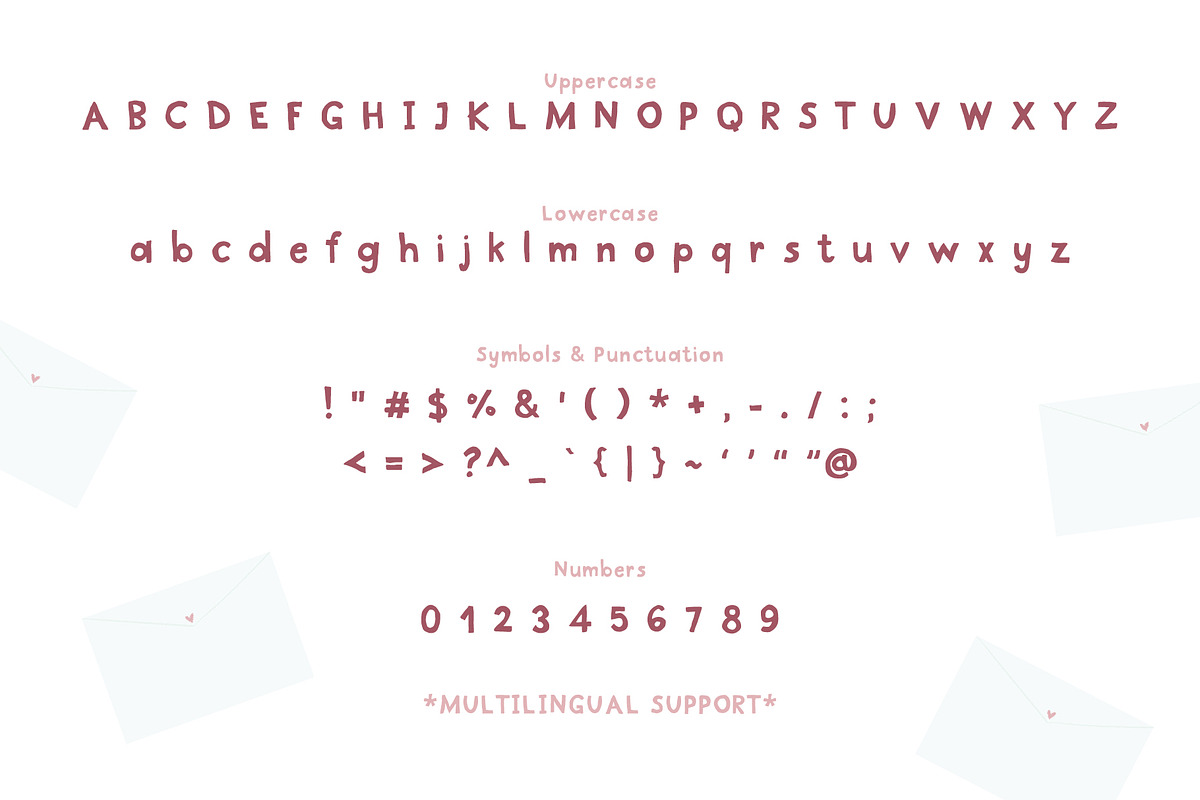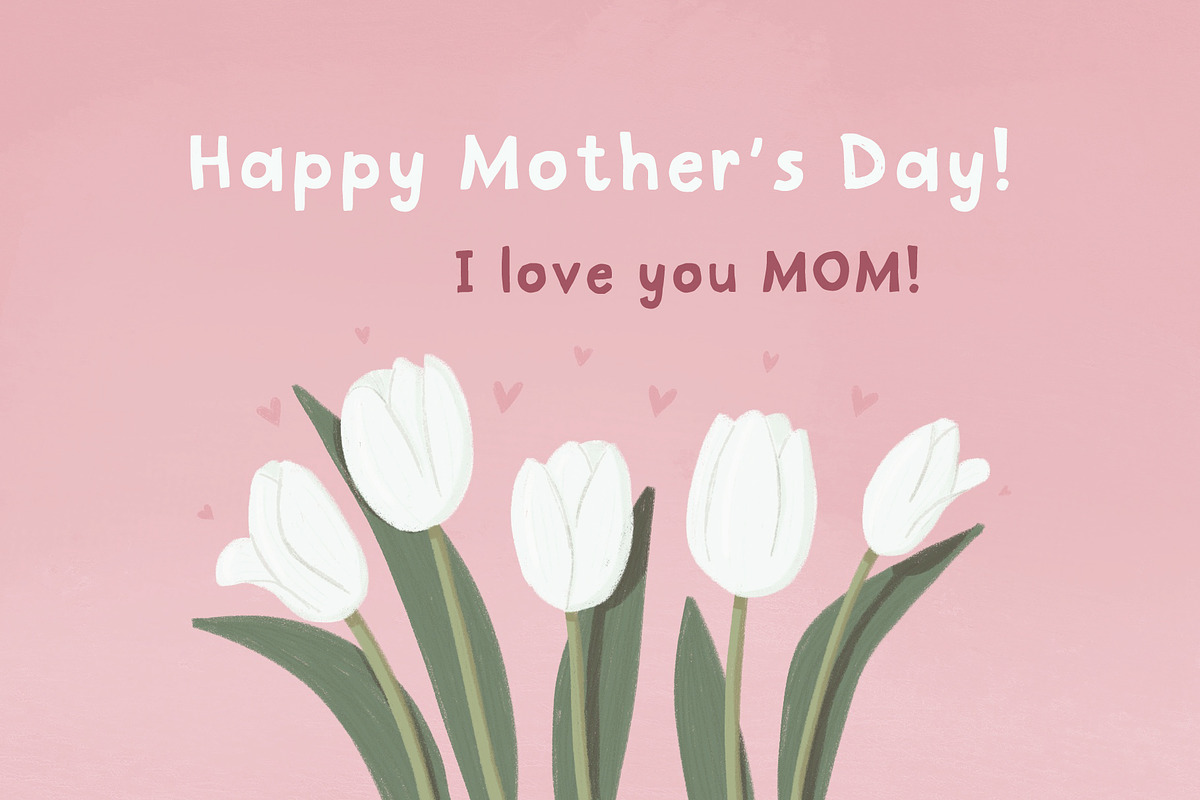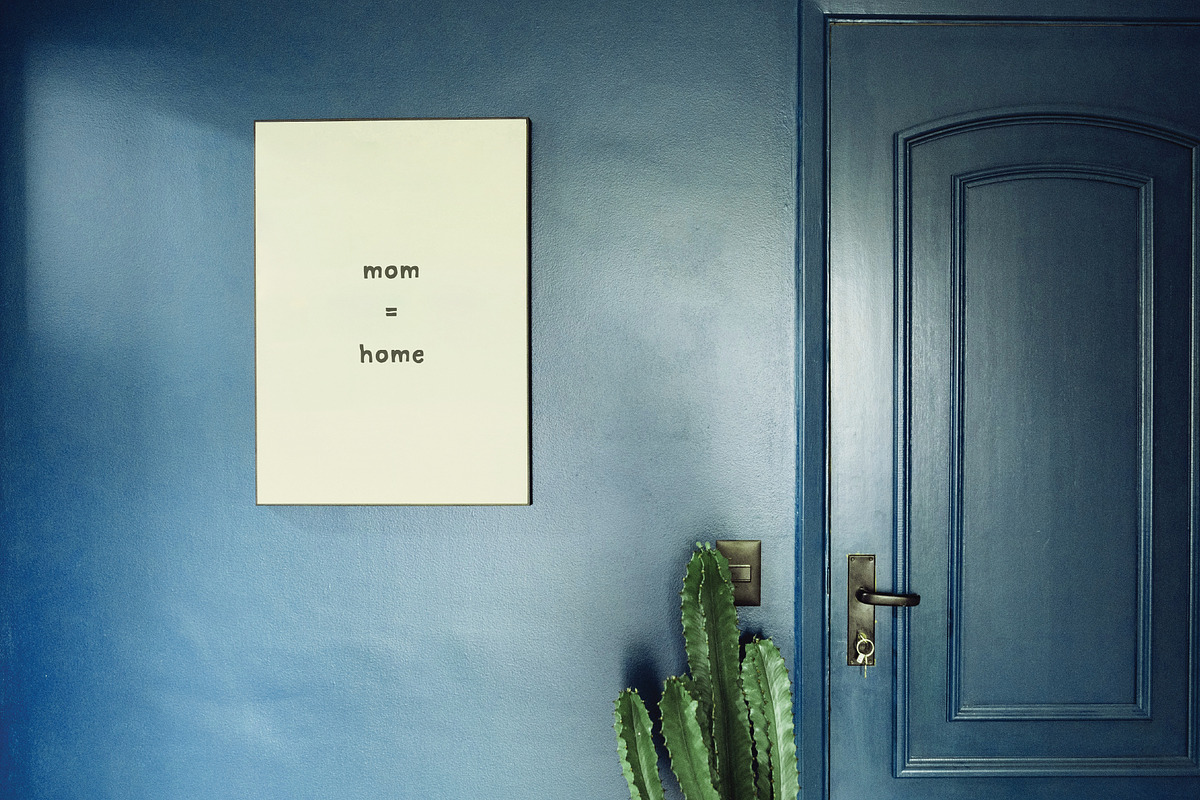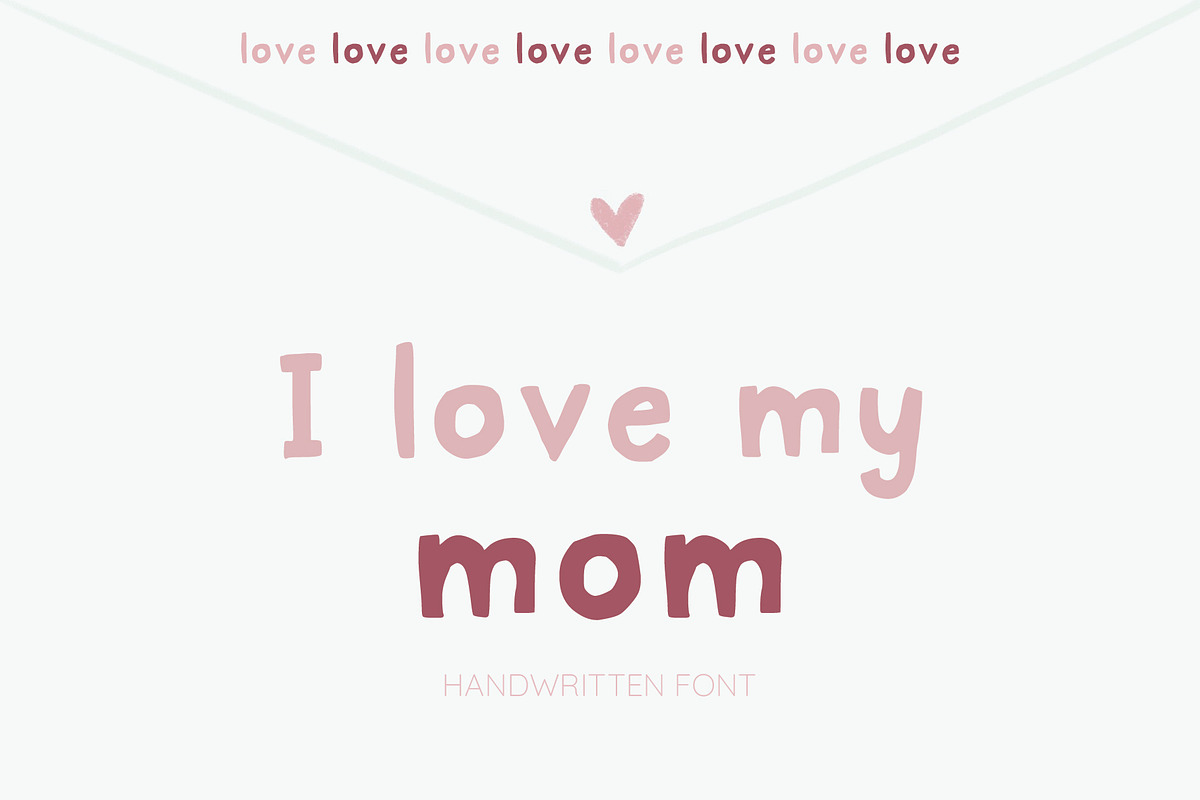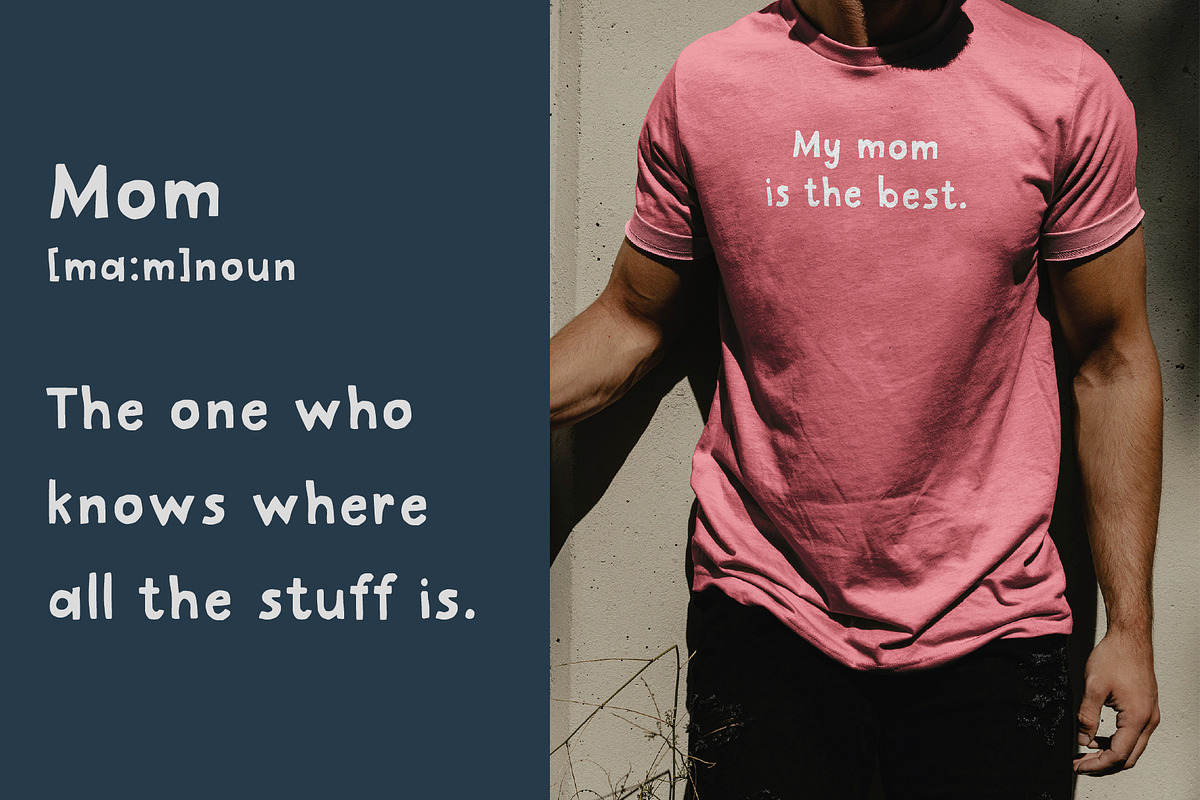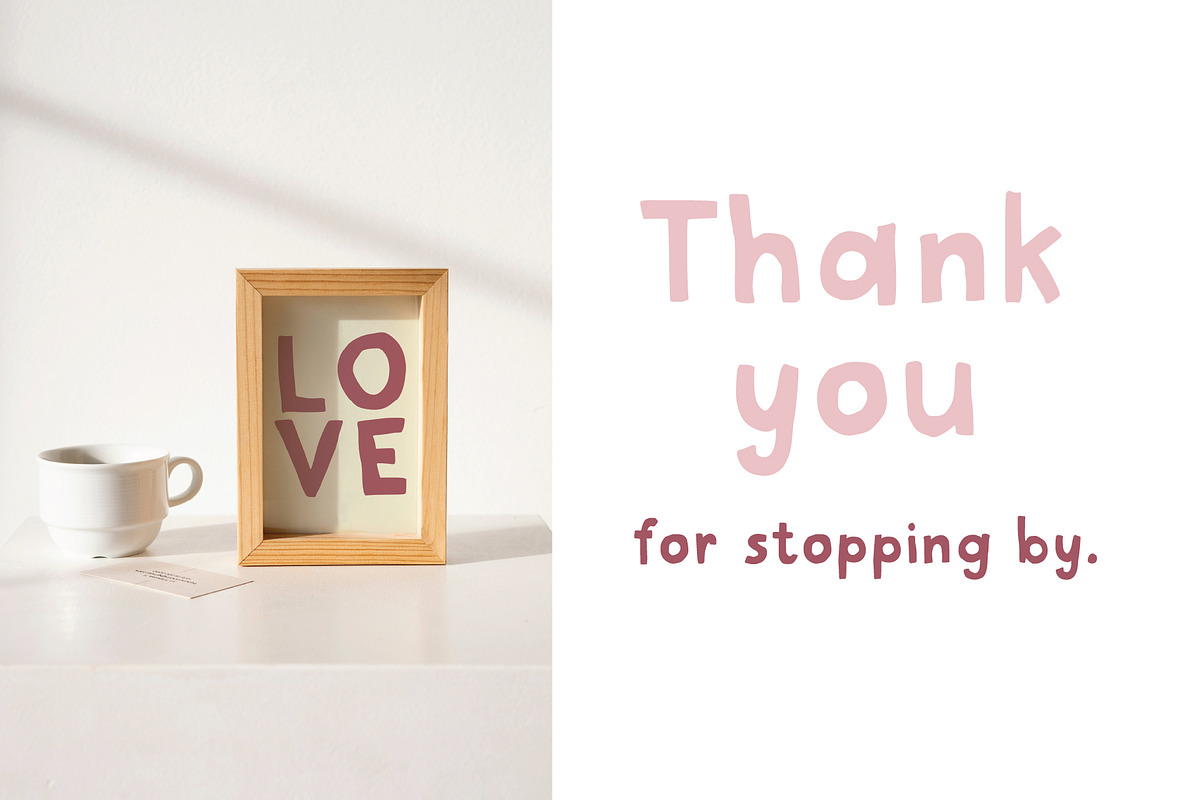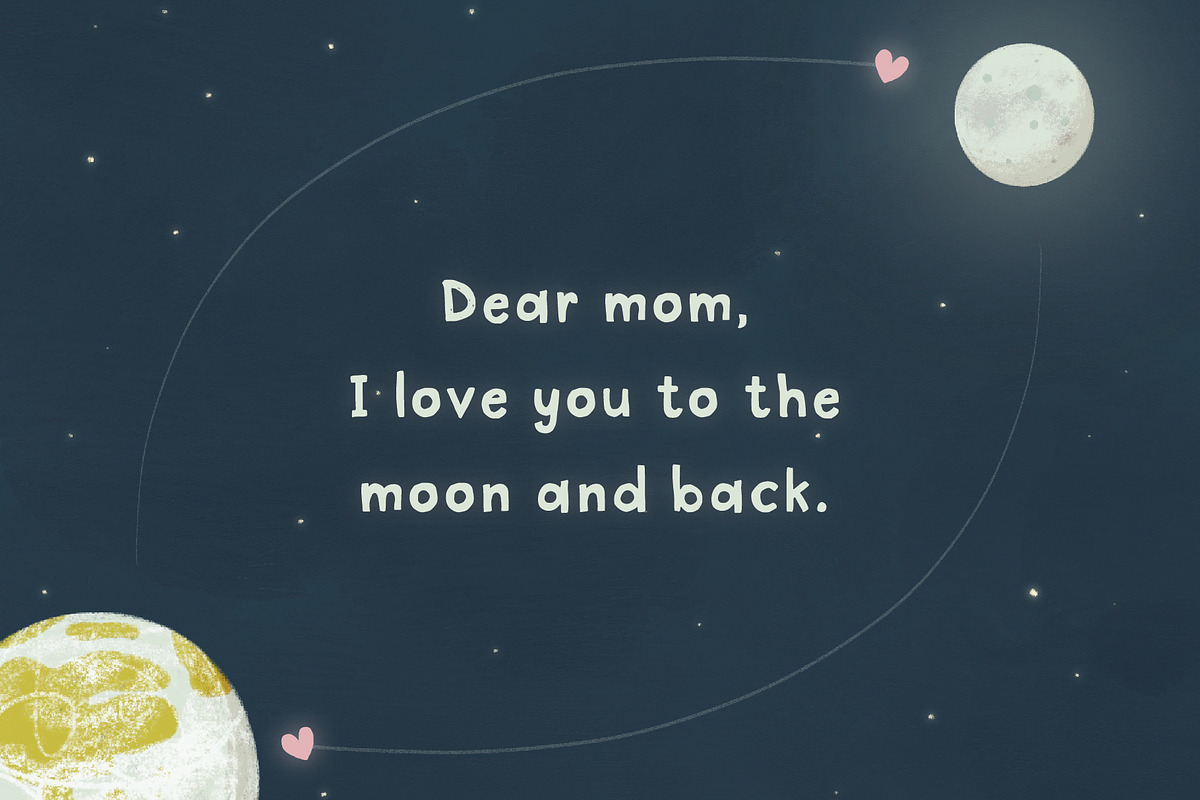
I Love My Mom
"I Love My Mom" is a bold, hand-drawn font that brings warmth and personality to any Mother’s Day design. Its playful, striking letterforms make it perfect for heartfelt cards, gifts, and special messages. Easy to read and full of charm, this font adds a personal touch to both print and digital projects, ensuring your message stands out with love and character. Make every moment extra special with "I Love My Mom"!
This font fully supports a wide range of languages, including English, French, Spanish, Portuguese, German, Italian, Swedish, Norwegian, Danish, Finnish, Icelandic, Polish, Czech, Slovak, Hungarian, Turkish, Estonian, Latvian, Lithuanian, Romanian, Albanian, Croatian, Bosnian, Slovenian, Serbian (Latin script), Irish, and Swahili. Test the font above to ensure it suits your project.